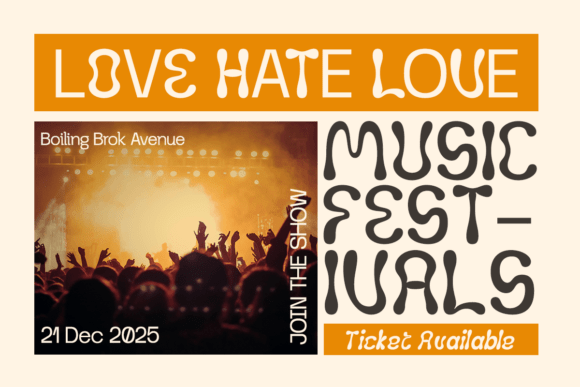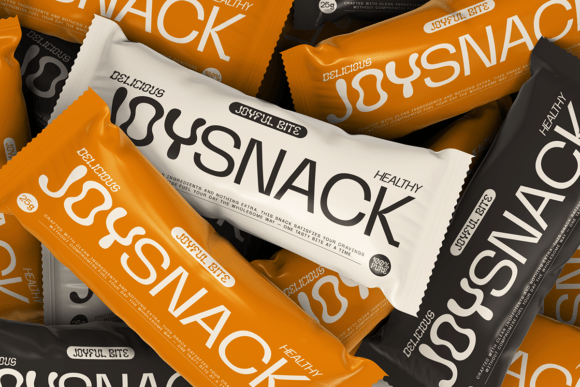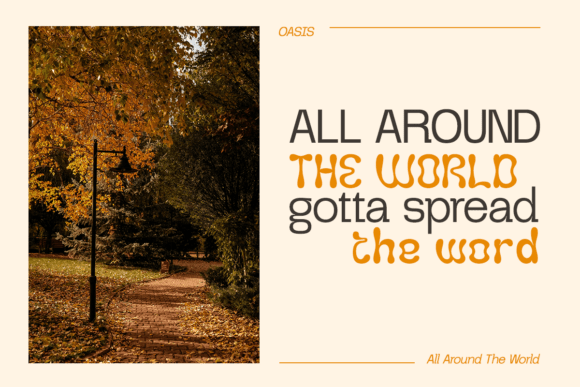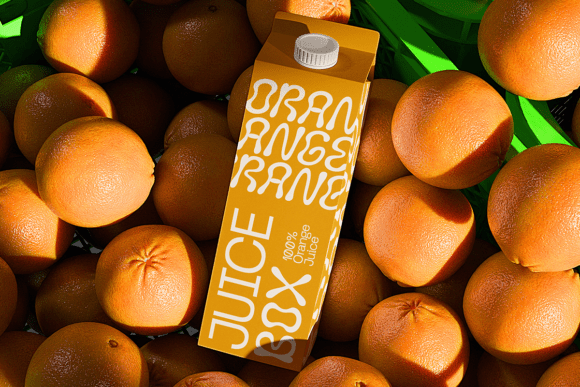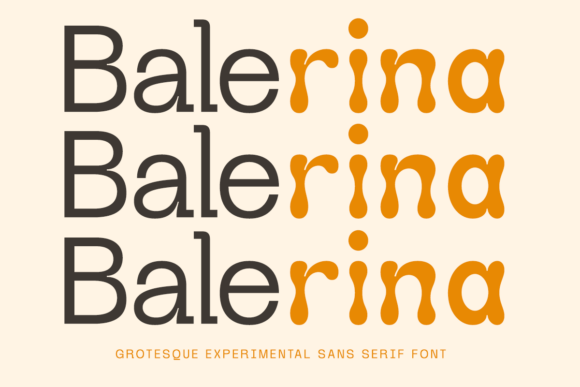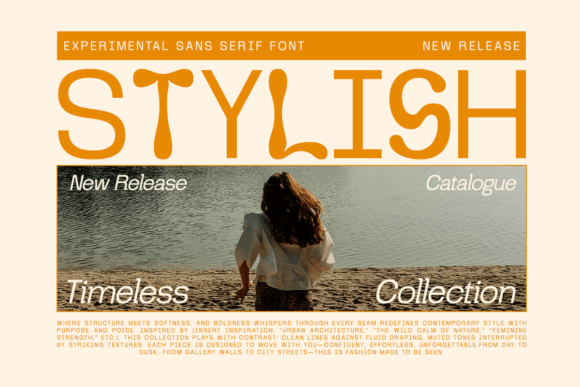
Introduction to Magseva Font
As a designer, have you ever found yourself staring at a blank canvas, eager to bring your creative vision to life? The excitement of a new project is always thrilling, but it’s the perfect font that can make all the difference. That’s where the Magseva Font comes in – an experimental grotesque sans-serif font that’s about to revolutionize your design game.
With its unique blend of groovy and unexpected curves, Magseva Font offers a fresh perspective on modern typography. Its clean and professional appearance makes it a valuable resource for designers looking to add a contemporary touch to their projects. Whether you’re working on a logo, invitation card, or packaging design, this font is sure to impress.
Key Features of Magseva Font
- Unique sans-serif font style with clean lines and modern aesthetic
Honest Review: Magseva Font
I recently stumbled upon the Magseva Font, and I must say, it’s a game-changer for any creative project. As a designer, I’m always on the lookout for high-quality design resources that can elevate my work, and this font definitely delivers.
- ✨ High-quality typography that’s perfect for headings and titles
- ✨ A wide range of styles and weights to choose from
While the Magseva Font is an excellent resource, there are a few limitations to be aware of:
- ⚠️ Limited support for certain languages and characters
- ⚠️ Not ideal for use as a body font, as it can be quite decorative
Overall, I’m really impressed with the Magseva Font, and I think it’s a great addition to any designer’s toolkit. With its high-quality typography and transparent background, it’s perfect for adding a touch of elegance to any creative project.
The Magseva Font is ideal for:
Creating eye-catching headlines and titles.
Designing modern and sleek branding materials.
Adding a touch of elegance to your creative projects.